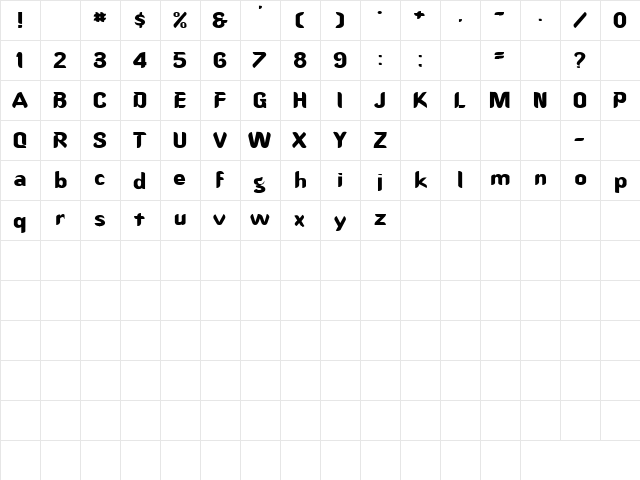
Core 13 Regular
Design Context for Core 13 Typeface
Core 13 is a composed and adaptable typeface that performs quietly and consistently across a wide range of design contexts.